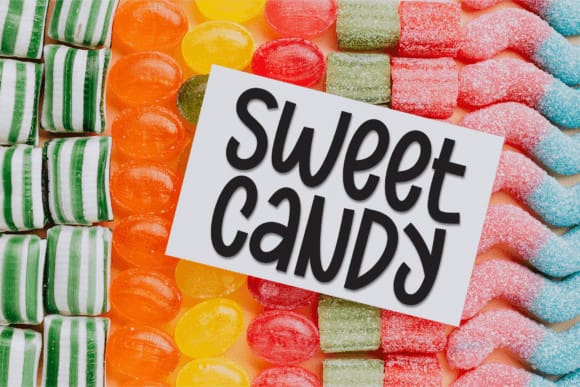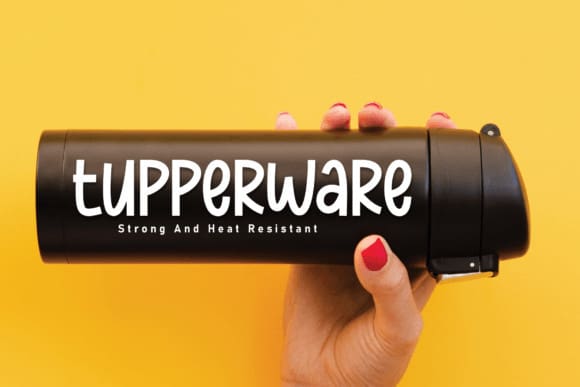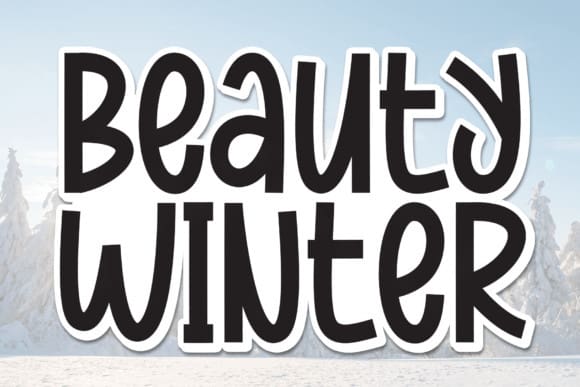
Beauty Winter Font
Beauty Winter Font a charmingly playful handwritten display font: ripe with inviting allure and a dash of whimsy! Ideal for personalizing wedding invites, adding a splash of joy to greeting cards, or infusing your designs with an air of delightful lightheartedness, this font is perfect for any creation where a touch of fun meets elegance. Imbued with sweetness and friendliness, this font adds a unique vibe, evoking the essence of handwritten warmth and charm.